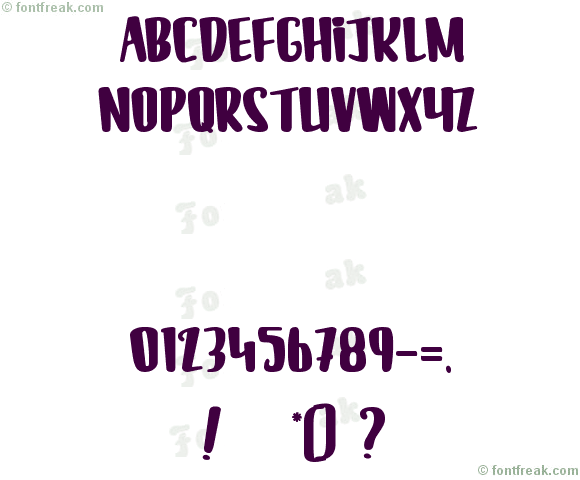
LESILENCEDESCAFARDS
About LESILENCEDESCAFARDS
The LESILENCEDESCAFARDS font by Maelle.K is a captivating display typeface that strikes a unique balance between playful and sophisticated. This font falls into the decorative category, characterized by its bold, expressive strokes and a distinctive sense of personality. The stroke weight is consistent, providing a sturdy yet whimsical appearance, while the spacing is thoughtfully designed to enhance readability without sacrificing style. The letters feature rounded edges and subtle curves, which contribute to a friendly and approachable aesthetic.
Ideal for a range of creative projects, the LESILENCEDESCAFARDS font is particularly well-suited for wedding invitations, where its charming character can evoke a sense of elegance and joy. It also shines in movie posters, where its boldness can capture attention and convey the film's theme effectively. For restaurant menus, this font can add a touch of creativity, making dishes feel more enticing and inviting. Additionally, it is a great choice for branding materials, particularly for small businesses looking to establish a memorable identity that resonates with their audience.
What sets the LESILENCEDESCAFARDS font apart is its unique blend of charm and functionality. Its distinctive visual style not only stands out in any design but also offers a sense of warmth and creativity that can enhance the overall appeal of a project. For those interested in exploring this font further, the LESILENCEDESCAFARDS font free download is an excellent opportunity to incorporate this delightful typeface into your design toolkit.